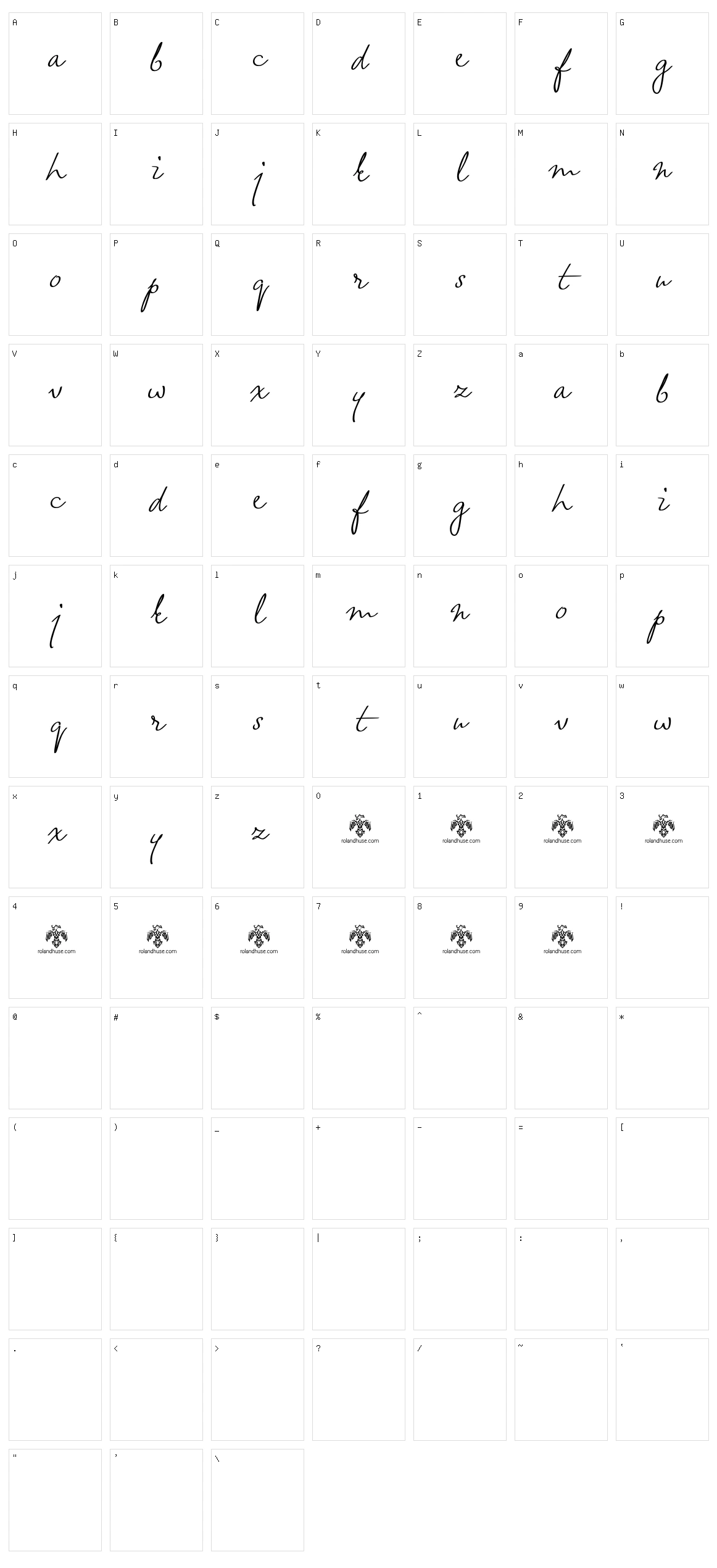
Wheatland
Designed by: Roland Huse Design
ÿþWHEATLAND-DEMO is a demo version of a handwriting interpretation font. Contains only lowercase and their alternates and connecting pairs for testing purposes so you can try if it works for you.